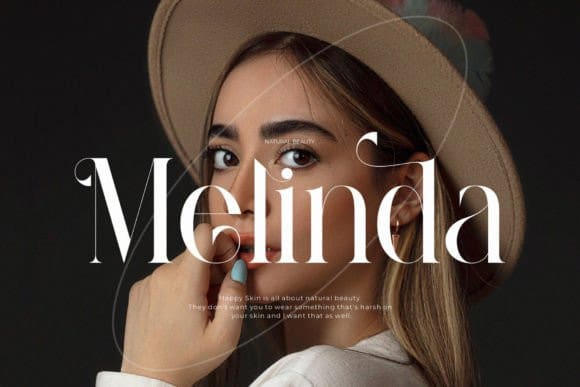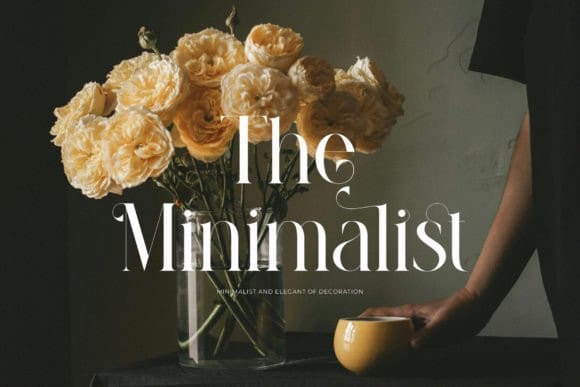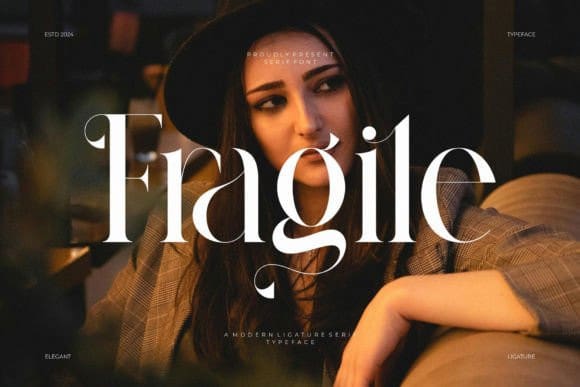
Fragile Font
Fragile Font is a modern serif typeface. This font is perfect for designing templates, brochures, videos, advertising branding, logos, invitations, layout designs, elegant crafting, beauty designs, and others.